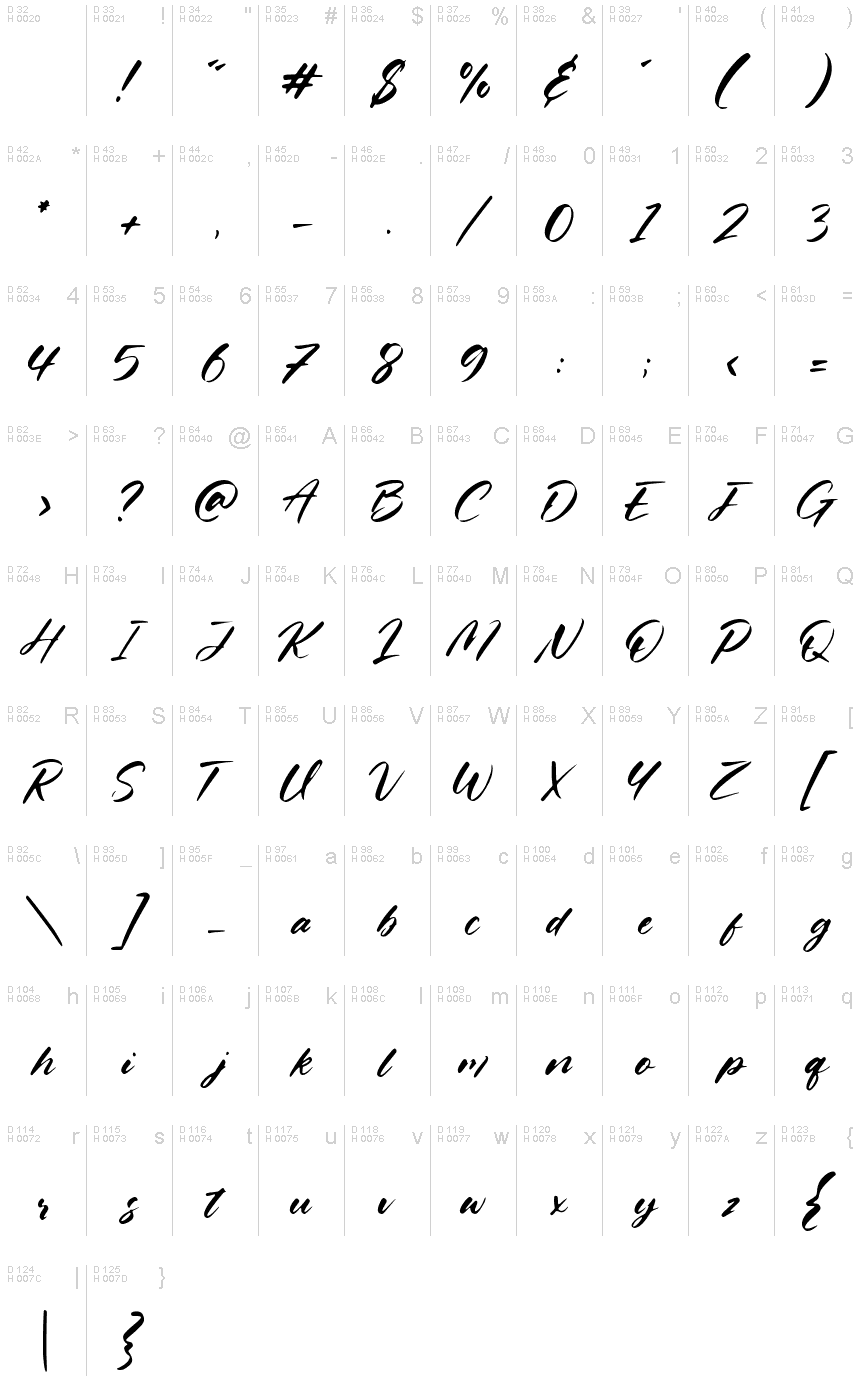
Gladiatore
Experience the bold elegance of Gladiatore, a modern handwritten font by Balpirick Studio. With its semi-light weight, Gladiatore exudes a sense of sophistication and creativity. Perfect for a wide range of projects, this font effortlessly adds a touch of refinement to logos, branding materials, invitations, and social media graphics. Its unique blend of contemporary style and handcrafted charm makes it ideal for fashion campaigns, lifestyle blogs, and art-related projects. Stand out from the crowd with Gladiatore's sleek lines and distinctive character. Let your words make a statement with this exquisite font choice.